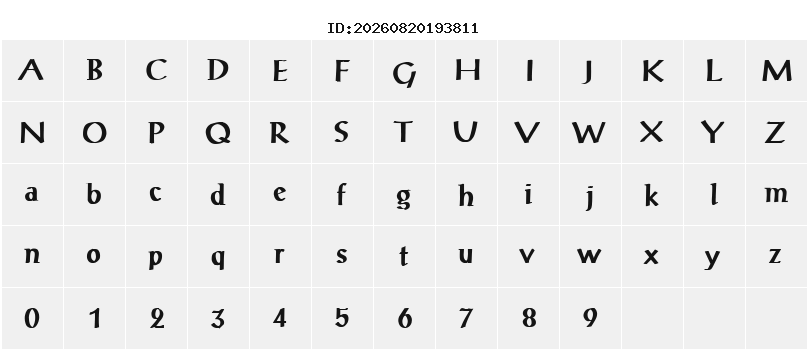
Seeing Things 2 Preview
• Font Name: Seeing Things 2
• Font ID: PostAntiqua-Light Bold:
• Full Font Name: Seeing Things 2
• Version: 1.0 Mon May 01 20:45:30 1995
• PostScript Name: PostAntiqua-Light-Bold
About Seeing Things 2.ttf
Seeing Things 2.ttf is a modern, elegant sans-serif font designed for ultimate readability and visual harmony. Perfect for branding, headlines, web design, and print materials.